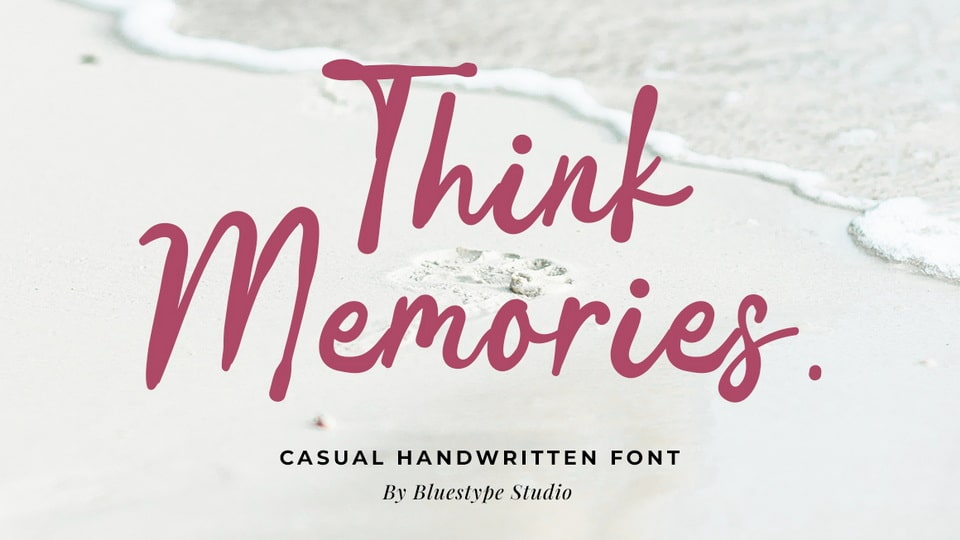
Download Think Memories font, a beautifully crafted typeface that embodies a natural and casual style and perfectly balancing elegance and simplicity.